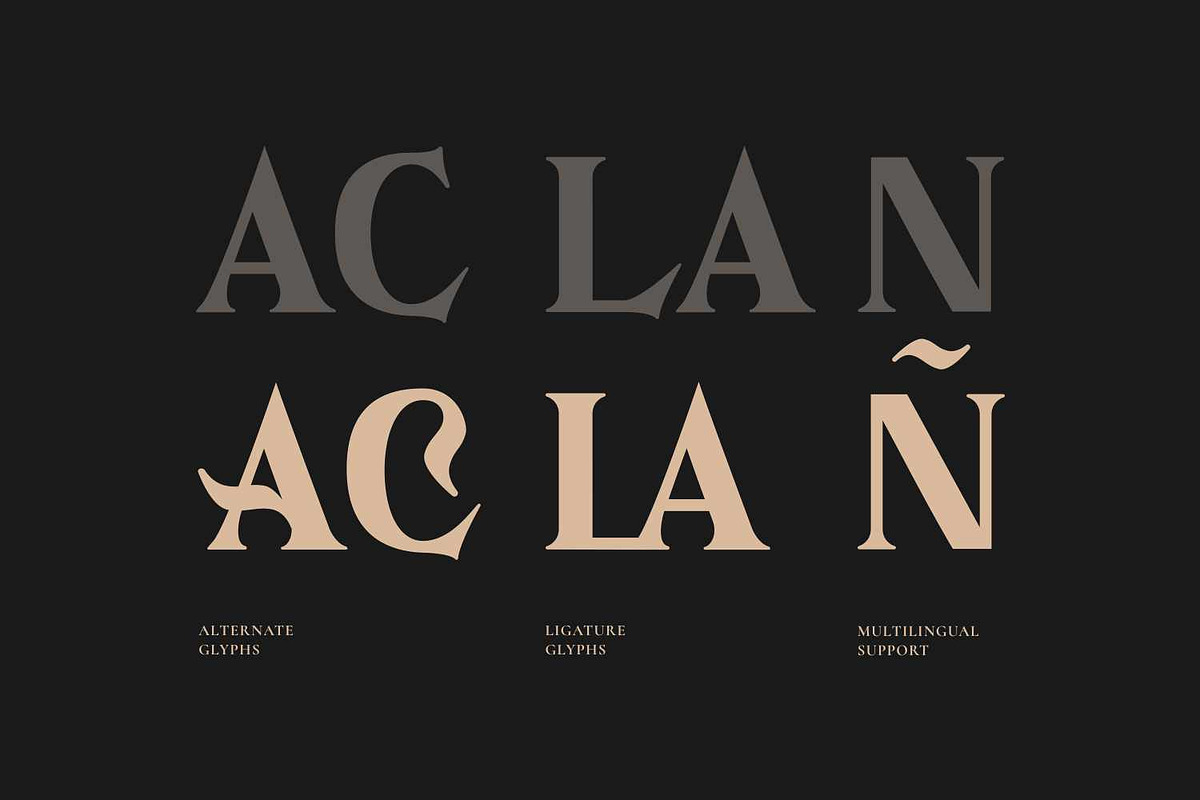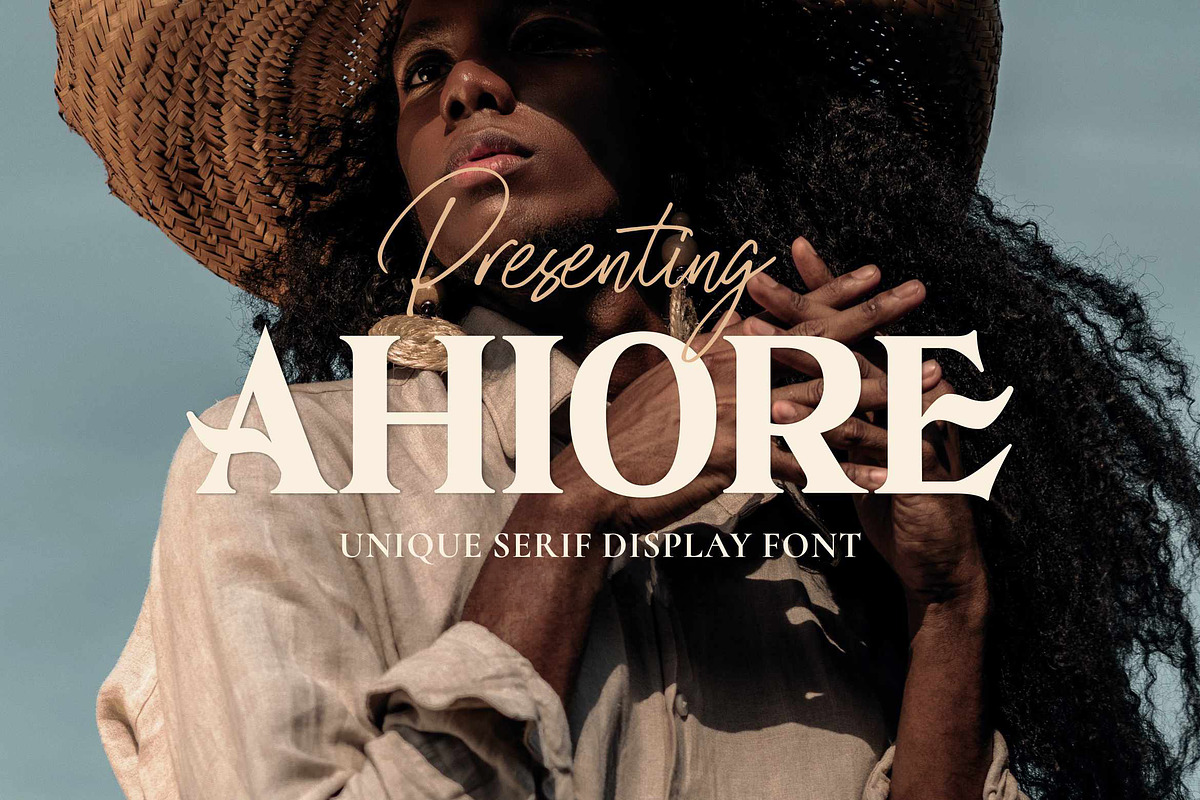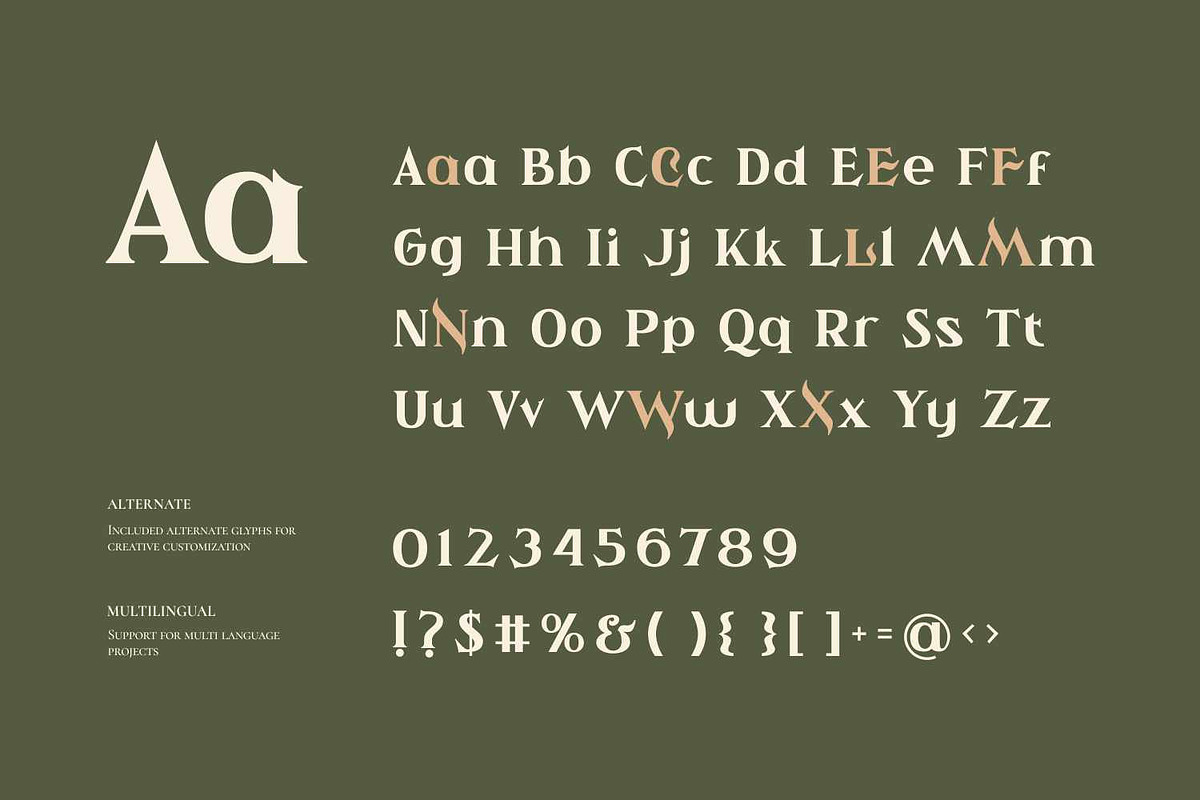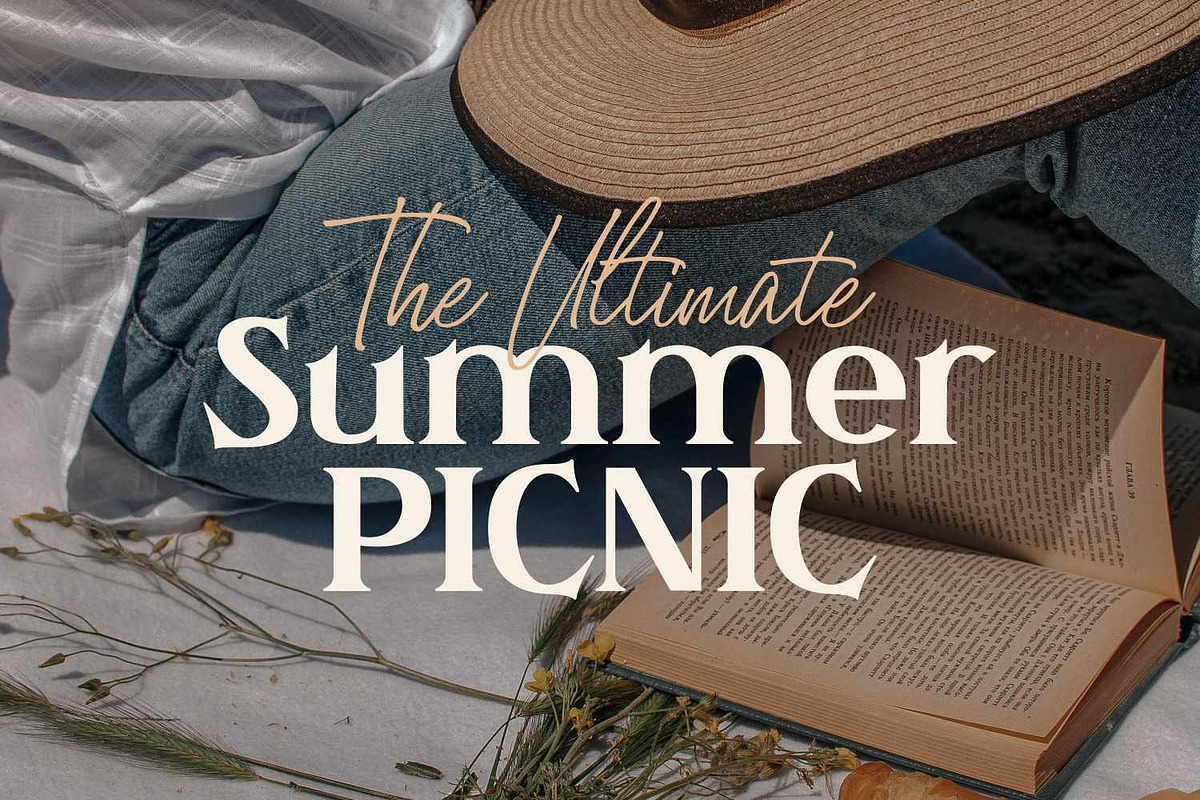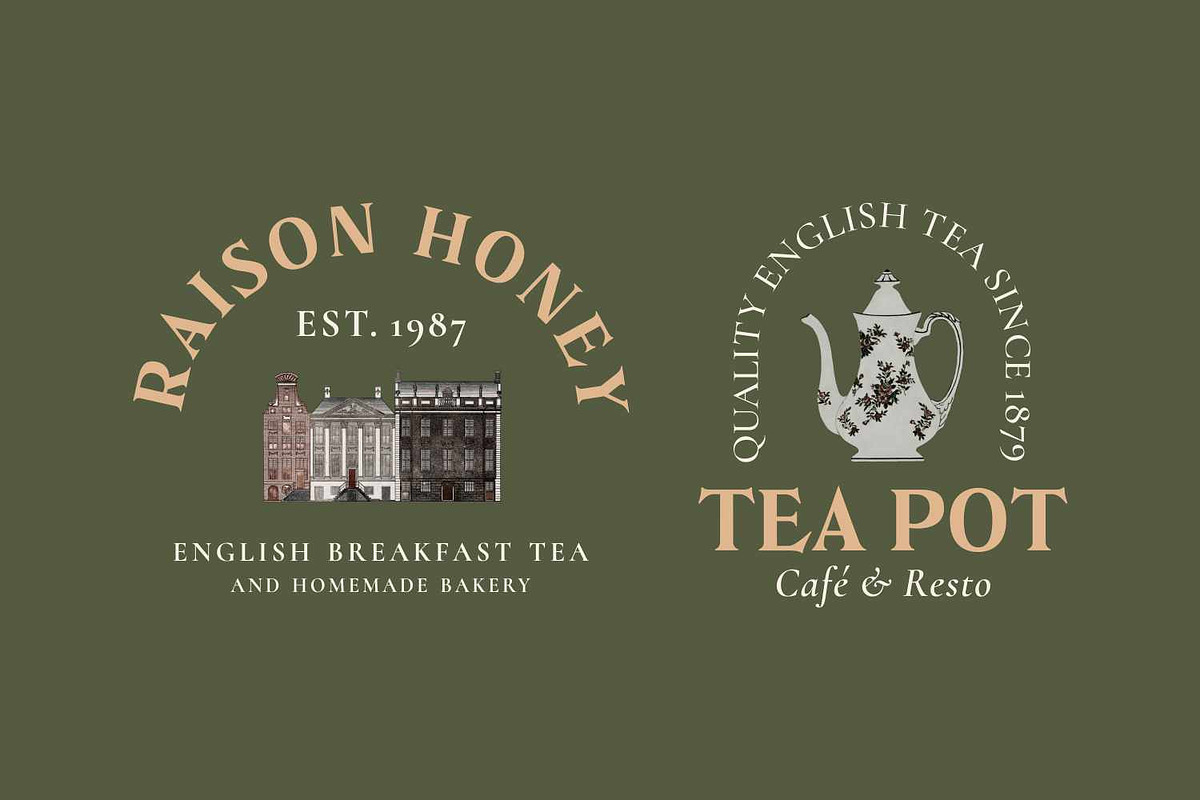
Ahiore - Retro Serif
Ahiore is a serif display typeface that blends classic elegance with modern. Editorial personality. Its capital letters carry bold, confident proportions with subtle flared terminals and curved detailing, while the lowercase set introduces playful, decorative flourishes and organic swashes that break away from traditional serif conventions.
Perfect for branding, logos, fashion editorials, magazine layouts, packaging, posters, wedding invitations, and any project seeking a sophisticated yet contemporary aesthetic.
Punctuation, Number, and Symbol
Opentype Features